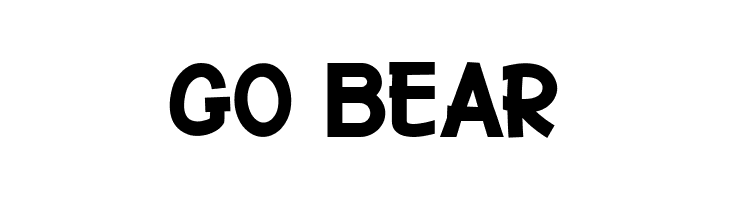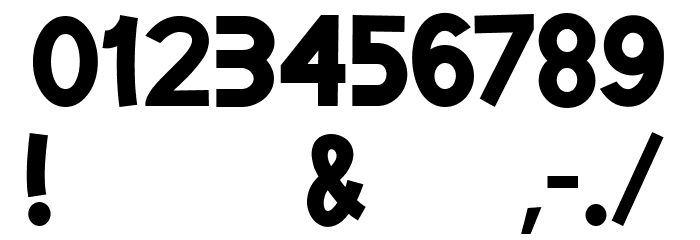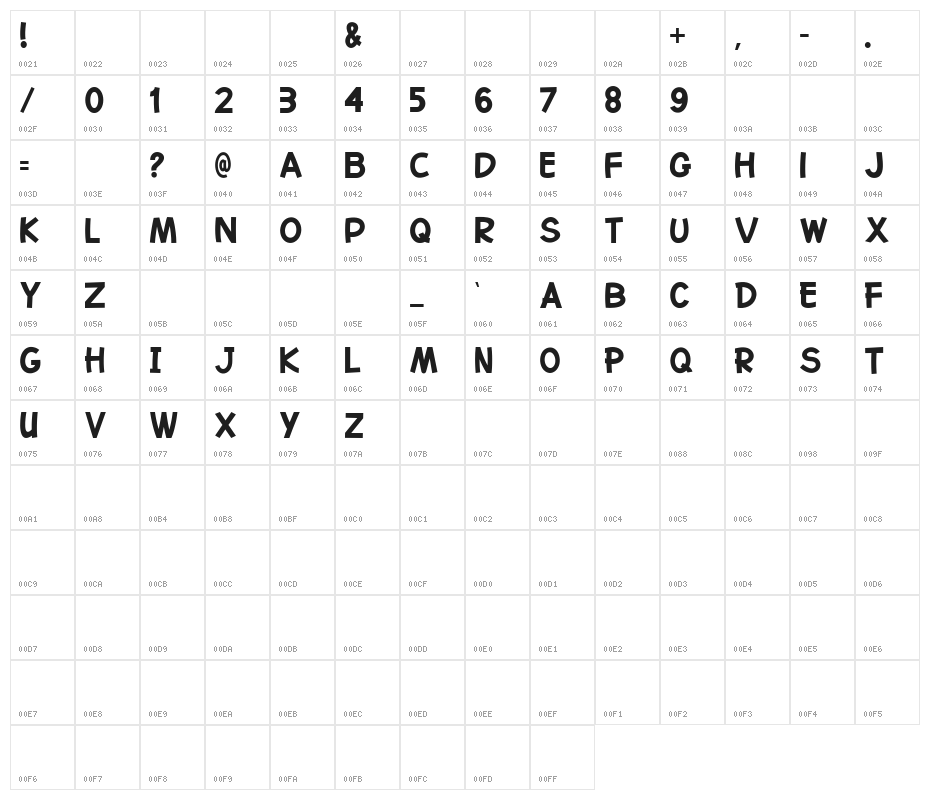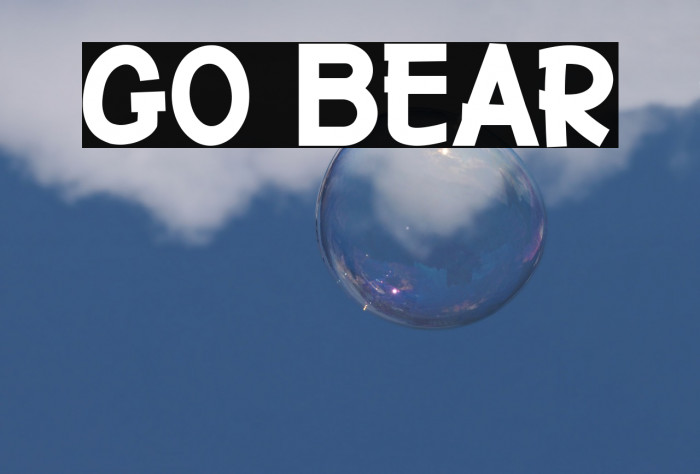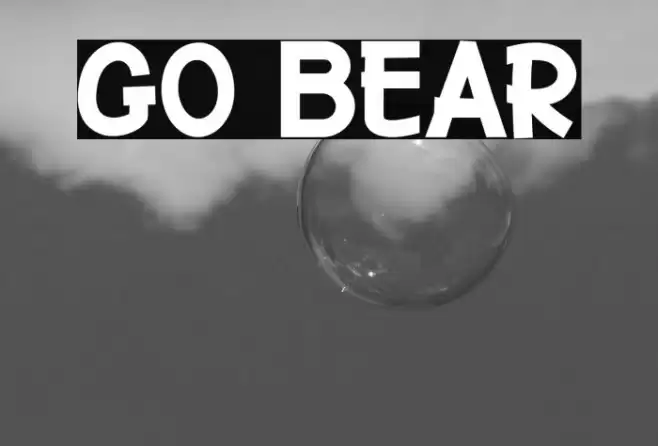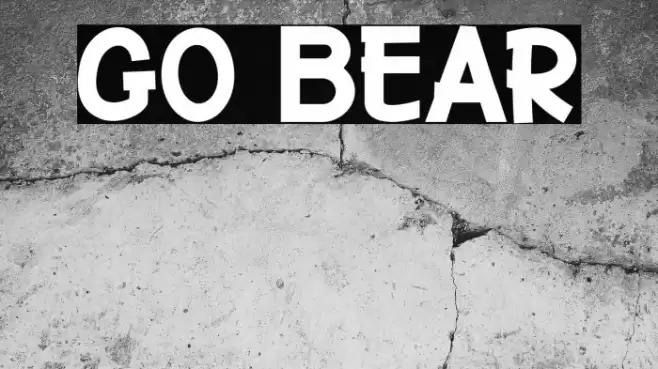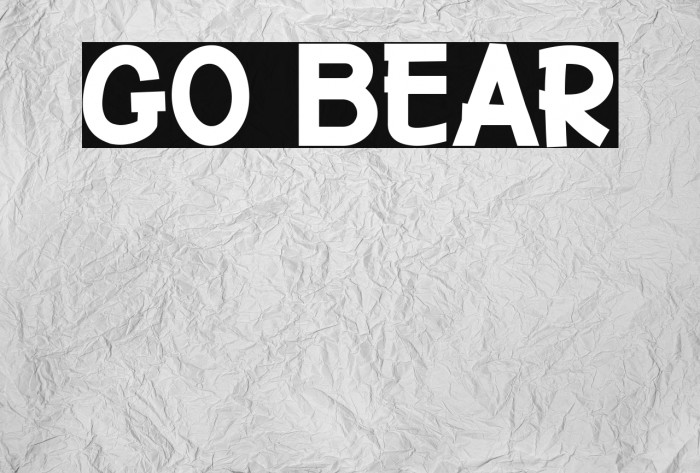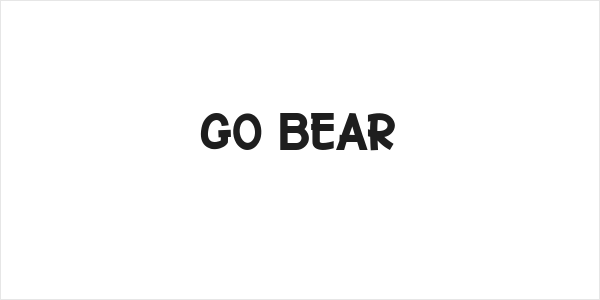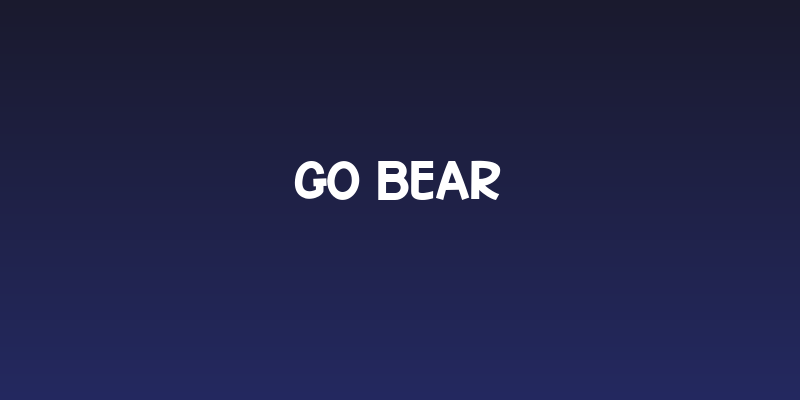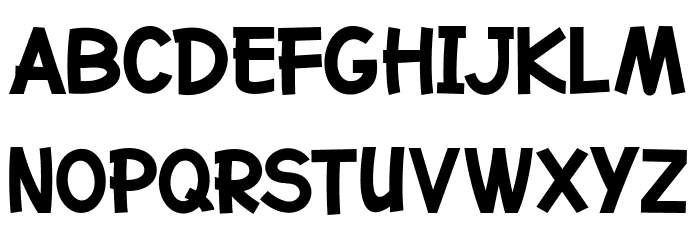
Go Bear Font
Go Bear Description
This playful and bold font features a lively and energetic style, with each character exhibiting a slight tilt and a hand-drawn appearance. The letters are thick and rounded, giving them a friendly and approachable feel. The uppercase and lowercase letters maintain a consistent style, while the numbers and special characters complement the overall design with their quirky and dynamic shapes. The font's informal and whimsical nature makes it ideal for projects that require a fun and engaging look.
| Overall Style | Playful, Energetic, Hand-drawn |
| Proposed Projects | Ideal for children's books, playful branding, comic strips, and casual event invitations. |